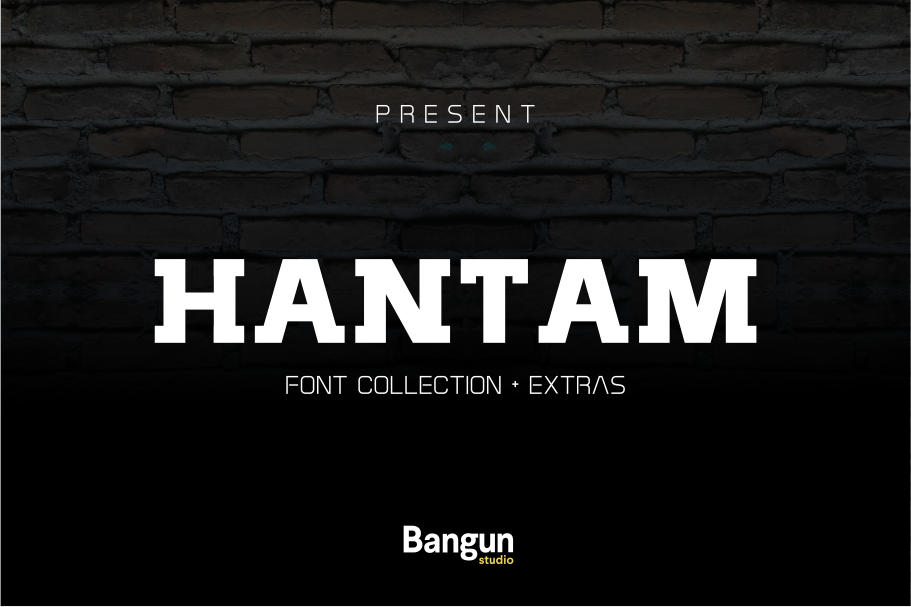
Hantam Font
Hantam Extras
Hantam inline
Hantam Slab
Hantam thin
Hantam
Hantam Stencil
A display font that gives you strong and bold typography. Hantam is a modern approach to the character set.